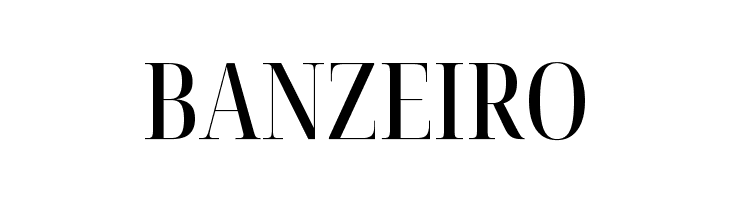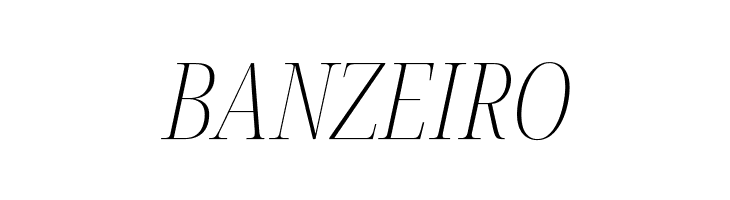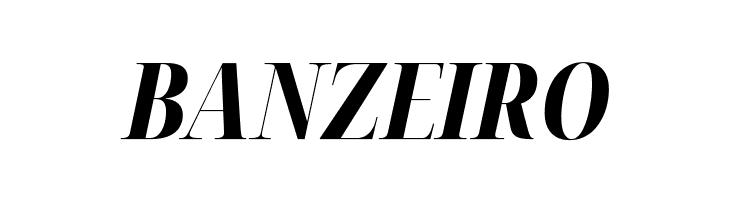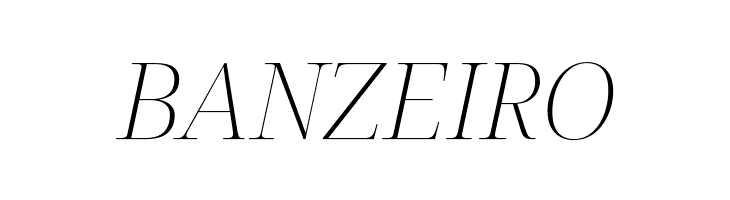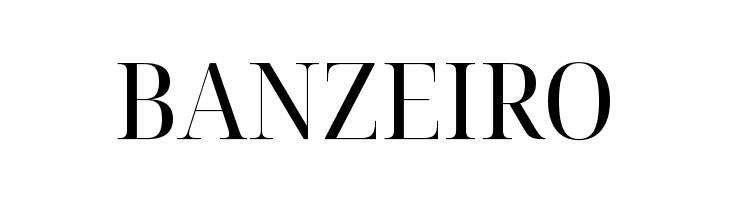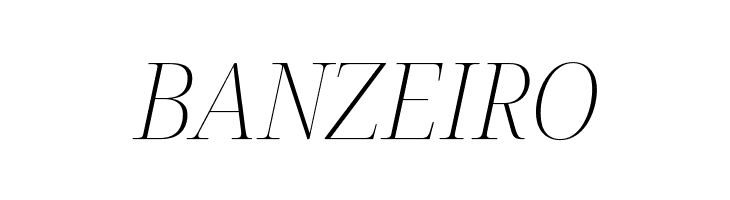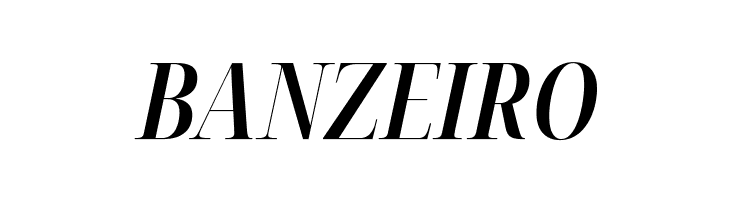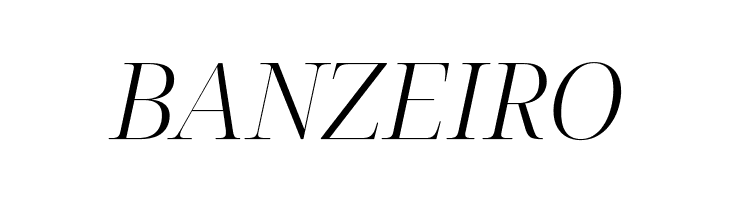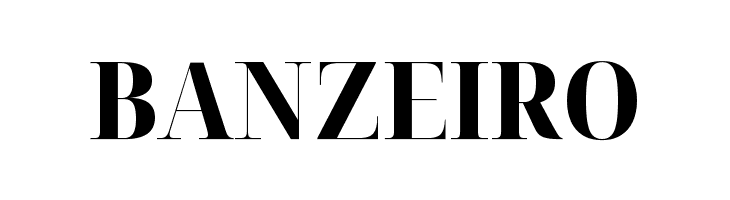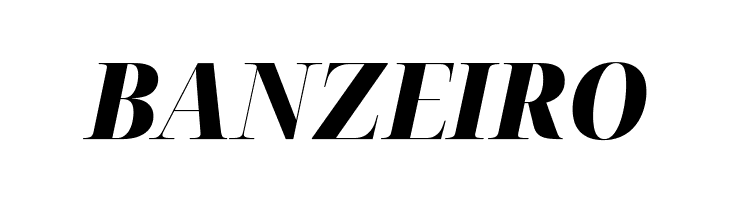
A bold, extra-condensed serif font with italic styling and high contrast.
A bold, extra condensed serif font with high contrast and elegant style.
A sophisticated serif font with extra bold weight, italic style, and high contrast, perfect for impactful headlines.
An elegant, high-contrast serif font with extra-condensed, extra-light characteristics.
An elegant, extra light, italic serif font with a condensed and sophisticated style.
A refined, extra condensed italic serif typeface with high contrast strokes.
A refined, extra condensed serif font with a light weight and high contrast.
Elegant, extra condensed serif font with high contrast and italic style.
A refined serif typeface with extra-condensed letterforms and high contrast strokes.
A refined, extra condensed serif font with a medium weight and italic style.
Elegant serif font with extra-condensed, semi-bold style and high contrast.
Elegant serif font with italic slant, extra-condensed width, and semi-bold weight.
A refined, extra-condensed serif font with thin strokes and high contrast.
A refined, thin, italic serif font with extra-condensed width and high contrast.
A refined serif font with high contrast and elegant letterforms.
An elegant, extra light serif font with italic styling and refined strokes.
An elegant serif italic font with medium contrast and refined style.
A refined serif font with high contrast and elegant, sharp serifs.
Elegant serif font with a light, italic style and high contrast.
A refined serif font with medium weight and elegant proportions.
An elegant serif typeface with a semi-condensed, extra light italic style and high contrast strokes.
An elegant semi-condensed italic serif font with moderate contrast.
A refined serif font with semi-condensed, light letterforms and moderate contrast.